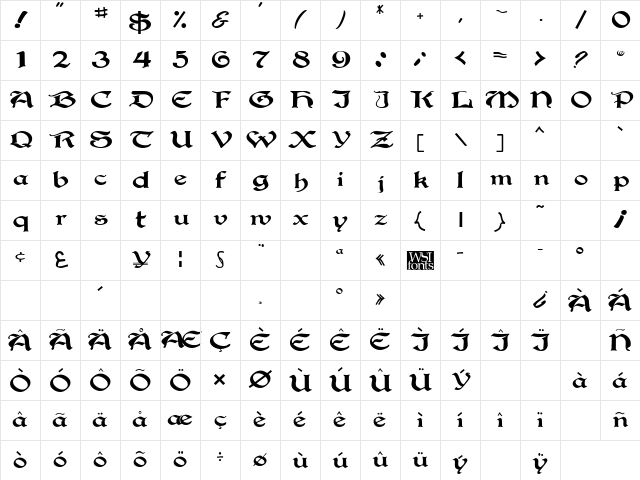
Gregorian Regular
Gregorian Family
Gregorian Regular
Complete Gregorian Regular glyph index. Displaying only characters natively supported by Gregorian Regular font.
Design Context for Gregorian
Gregorian is a composed and adaptable typeface that performs quietly and consistently across a wide range of design contexts.